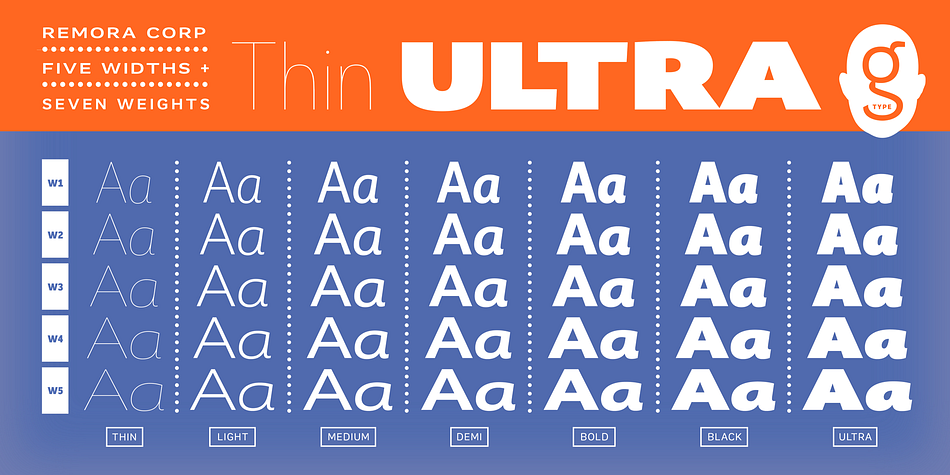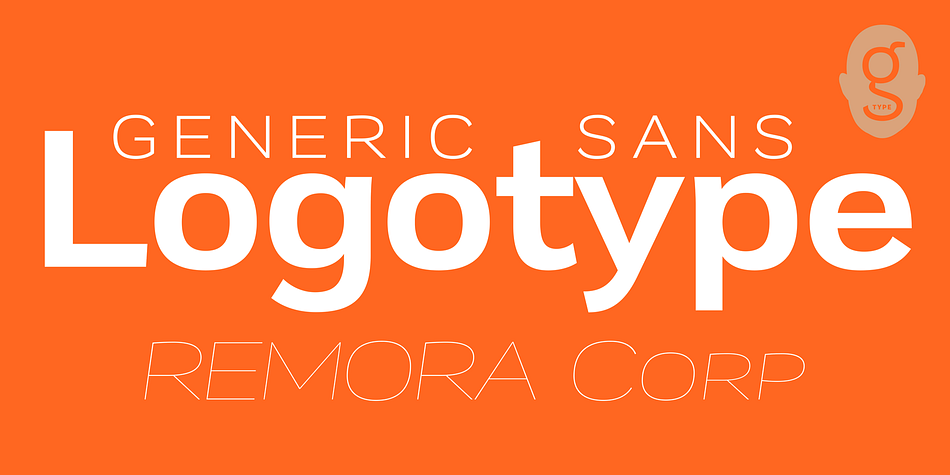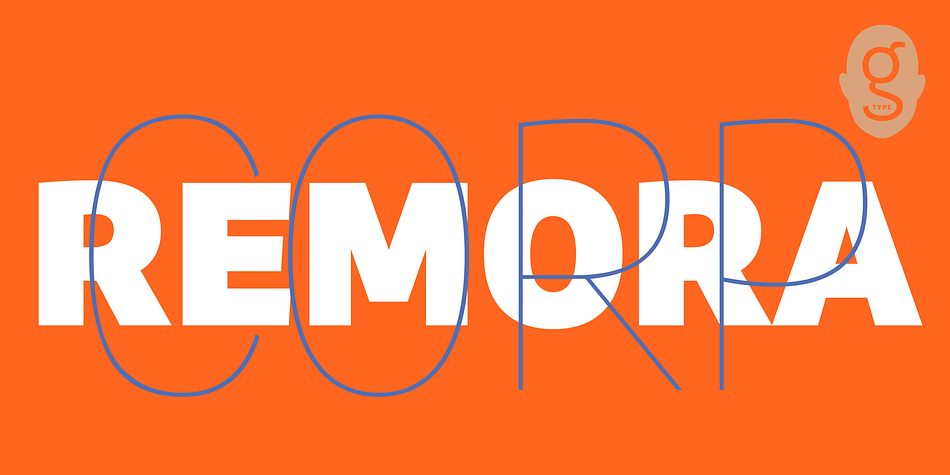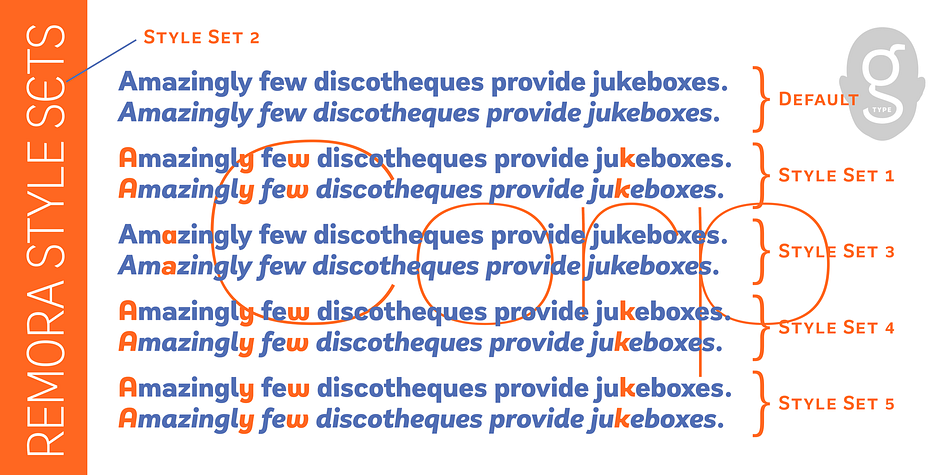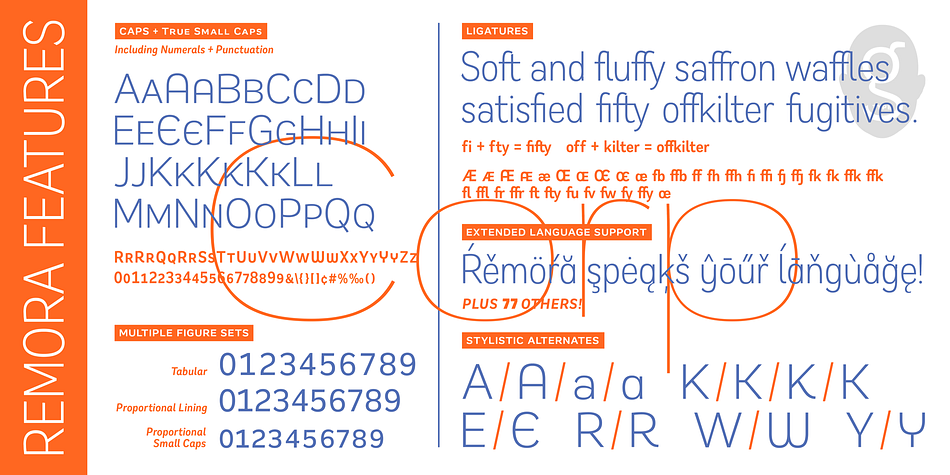
Designed by Nick Cooke, Remora Corp W1 is a sans serif font family. This typeface has fourteen styles and was published by G-Type.
Remora Corp is an ultra versatile sans serif type family, the more straight laced sister to Remora Sans and perfect for corporate communication.
Each Remora set comes in 5 different width options ranging from the condensed W1 to the expanded W5, each boasting 7 weights plus true italics.
Remora Corp W1’s condensed letterforms are tailor made for flexible copy fitting and working within space restrictions without sacrificing design excellence.